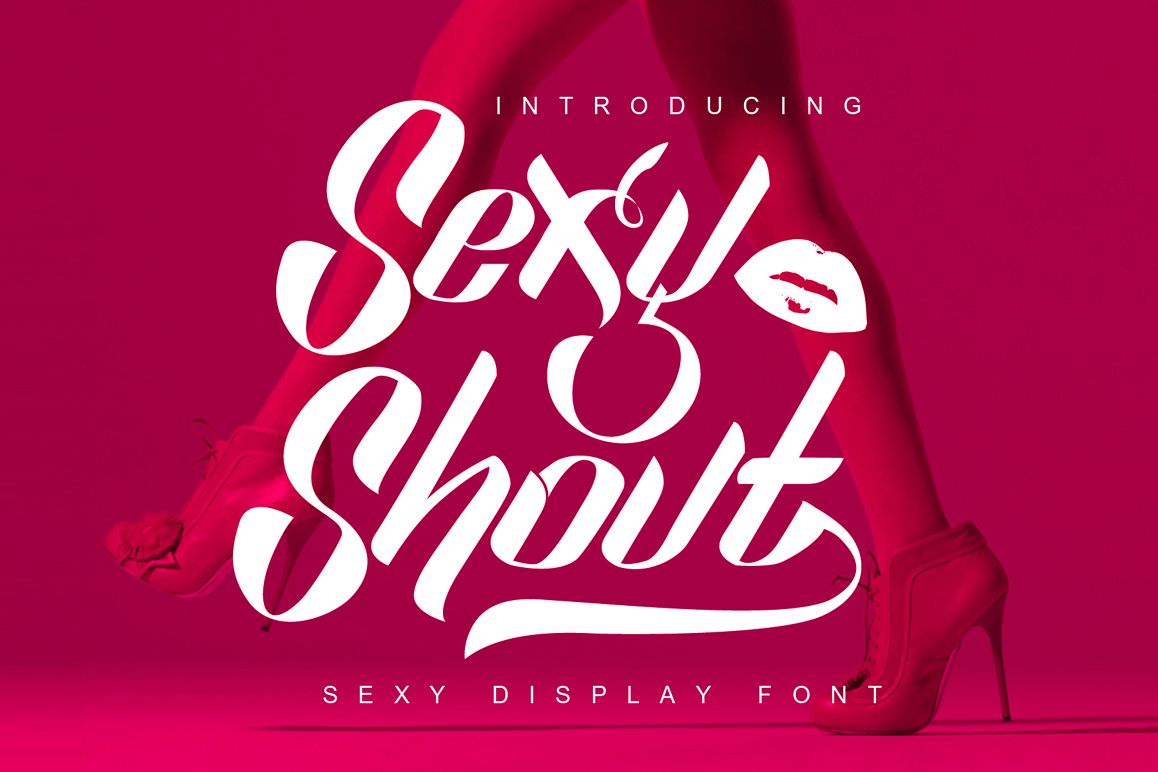
Sexy Shout
Sexy Shout Decorative.
Sexy Shout.
Suitable for design, element design, wedding, event, t-shirt, logo, badges, sticker, and awesome work, etc...
- Combination alternative ligature fonts
- Regular Fonts, Script Fonts, Multilanguage Characters
- Bonus Swashes And Decorative
- Modern and Authentic Typeface
- Unique style fonts